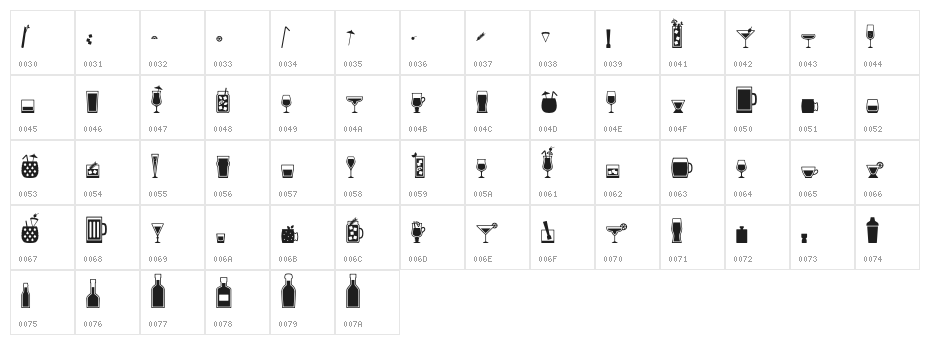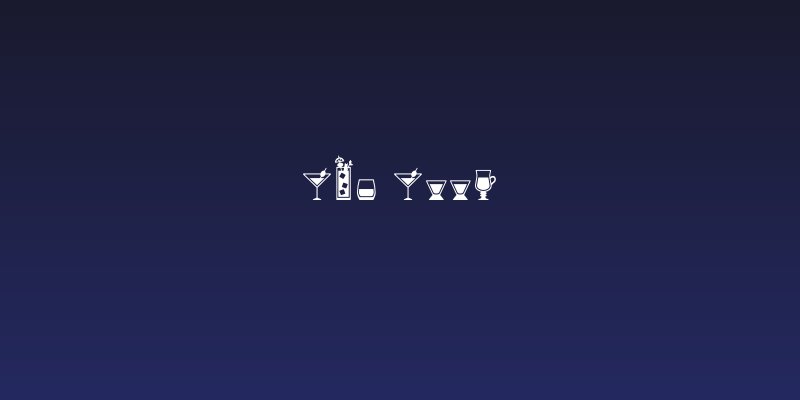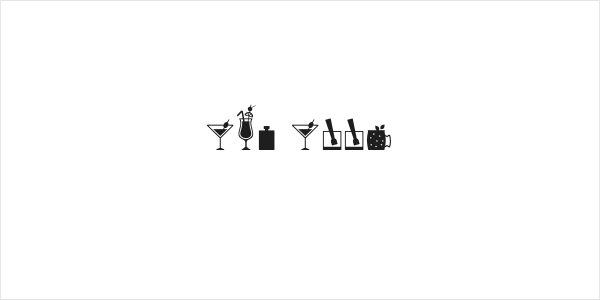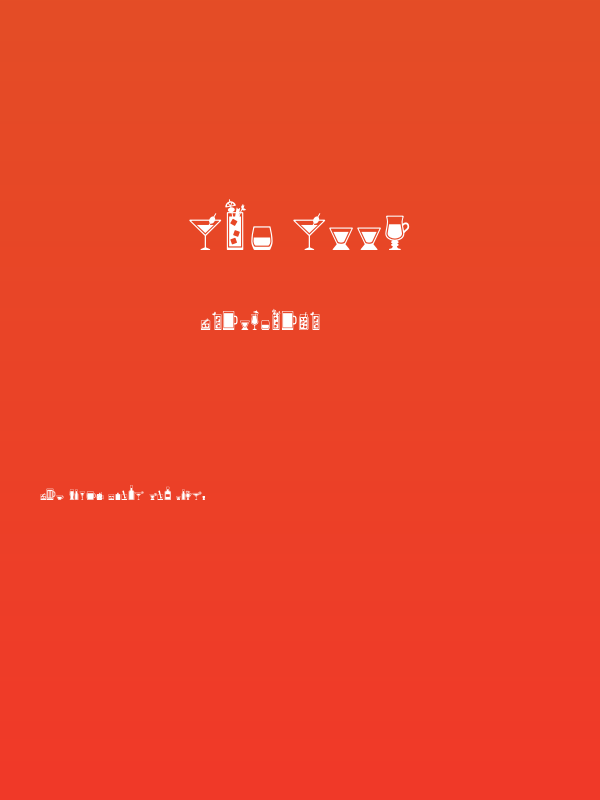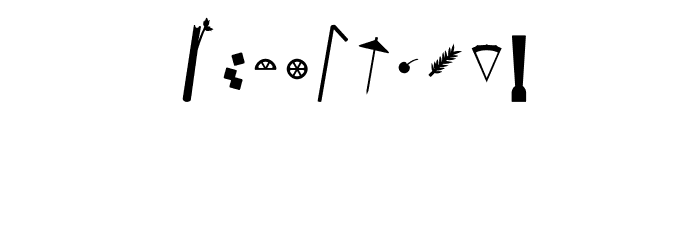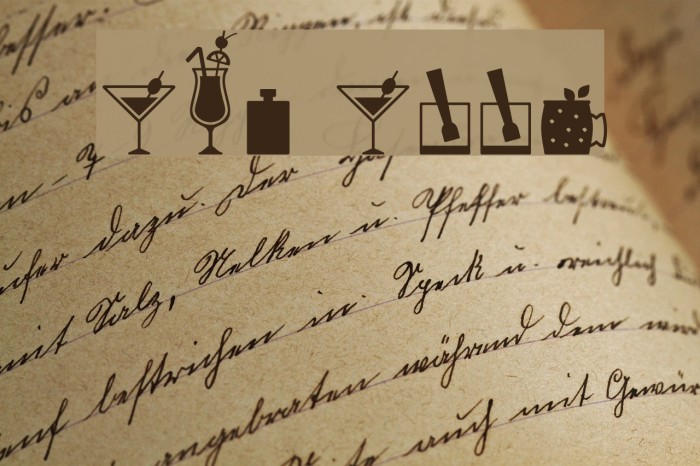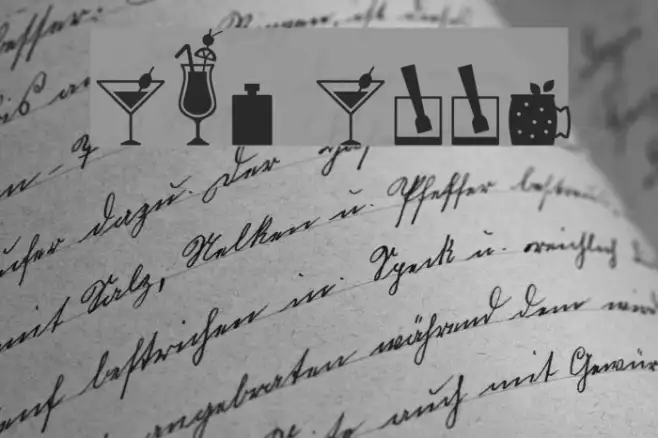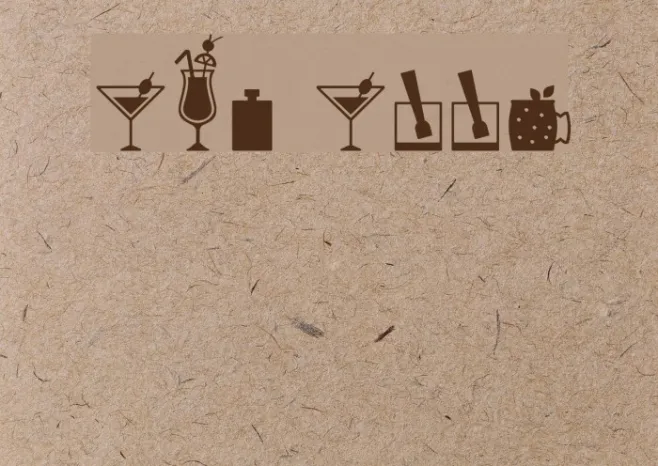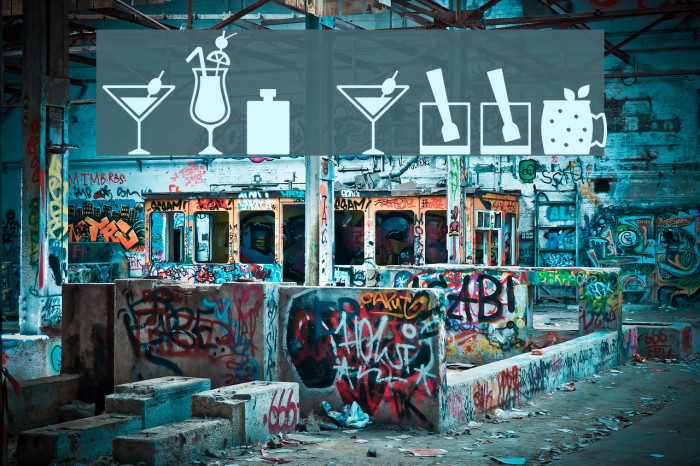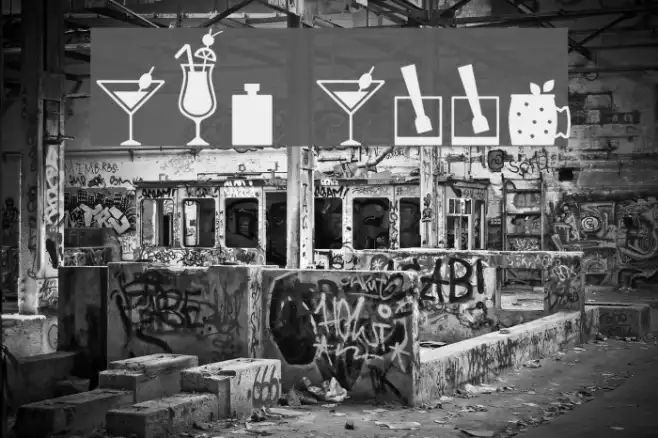
Bar Book Font
Bar Book Description
This collection of icons features a variety of drink-related imagery, including cocktails, glasses, bottles, and barware. Each icon is rendered in a bold, black silhouette style, providing a clear and striking visual representation. The icons are consistent in their design, with a playful and modern aesthetic that captures the essence of a lively bar or cocktail setting. The set includes a diverse range of drink types, from martinis and tropical cocktails to beer mugs and wine glasses, making it versatile for various beverage-themed projects. The icons are well-suited for use in digital media, print, and branding, offering a cohesive look that can enhance any design with a touch of sophistication and fun.